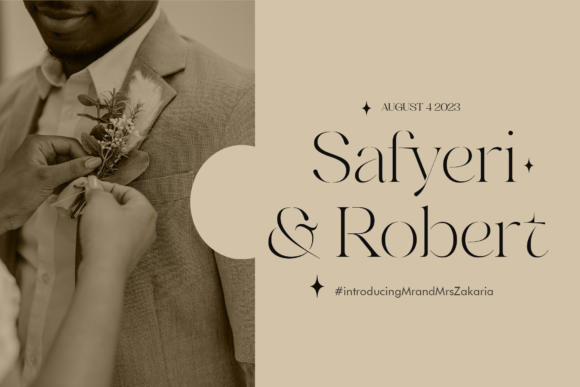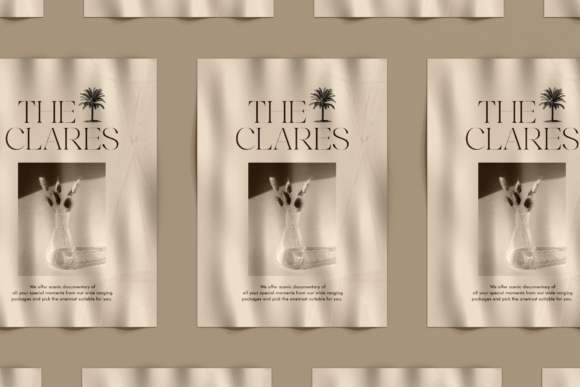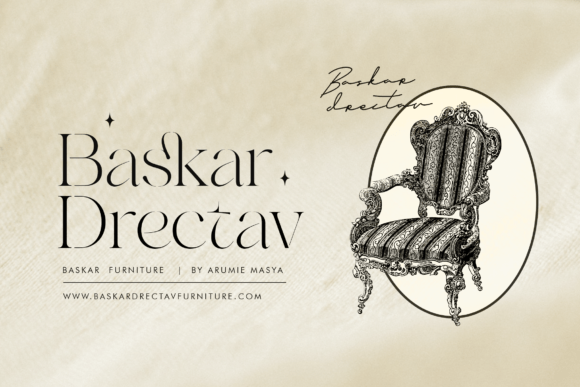
Selectify Font: Elegant Stencil Serif for Wedding & Logo Design
About the Selectify Font
Crafted with precision, the Selectify Font is ready to bring your ideas to life. Introducing Selectify, the stencil serif font that exudes elegance, luxury, and beauty. With its feminine touch, Selectify is perfect for any project that requires a touch of sophistication. Selectify is perfect for various design projects that require a touch of sophistication. You can use it for branding, packaging, logos, invitations, and more. The elegant, luxurious, beautiful, and feminine touch of Selectify makes it perfect for any project that requires a touch of class. The ligature feature adds an extra layer of uniqueness to your designs.
Selectify Font Usage Examples
Selectify Font Example